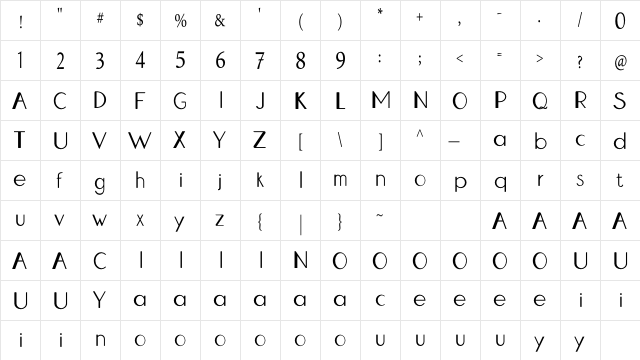
Izumi Hana Regular
| Foundry | Frederik Aristaputra |
| Designer | Frederik Aristaputra |
Design Context for Izumi Hana Typeface
Izumi Hana takes a measured approach to typography — its balanced proportions and neutral character make it a reliable workhorse for both digital and print work.